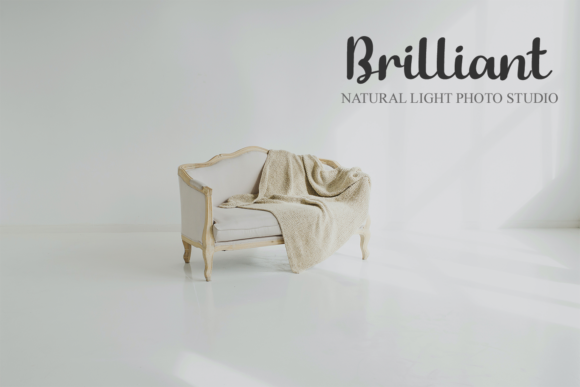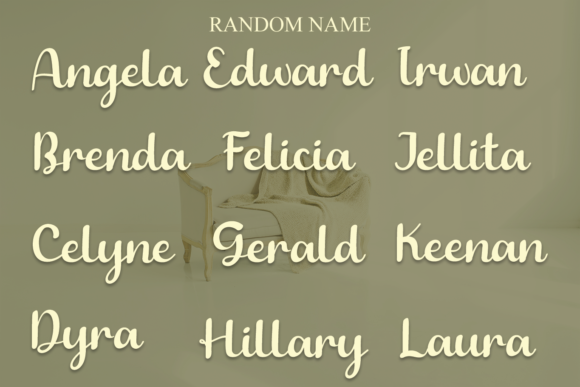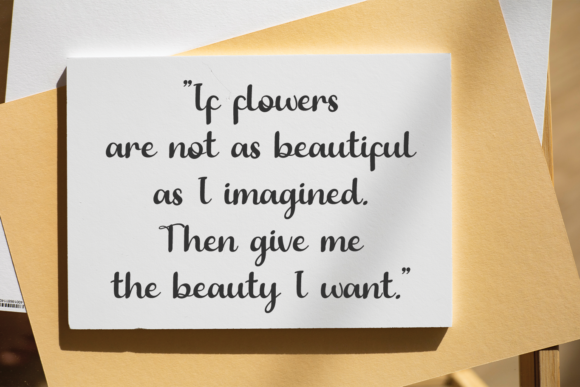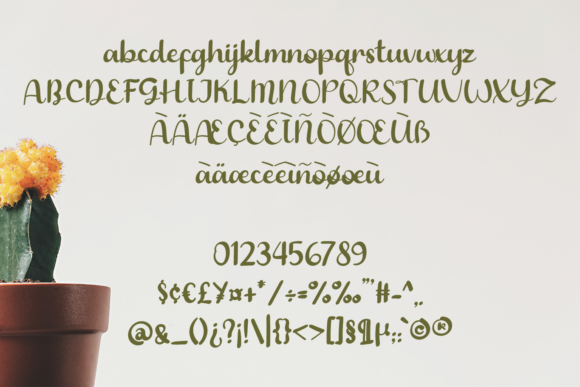
About Emberly Font
Emberly feels equally delicate and chic. It looks lovely on wedding invitations, thank you cards, quotes, greeting cards, logos, business cards and every other design which needs a customized touch.